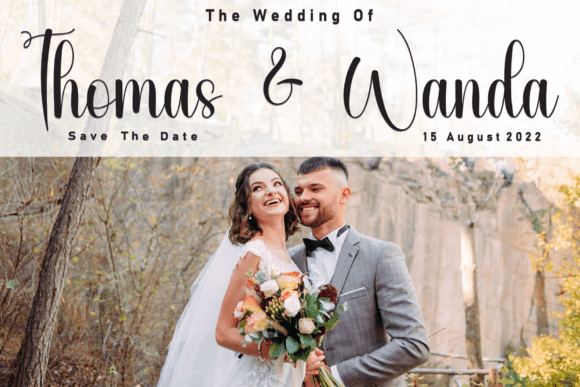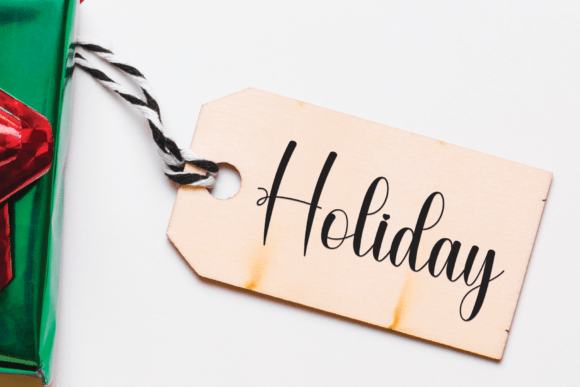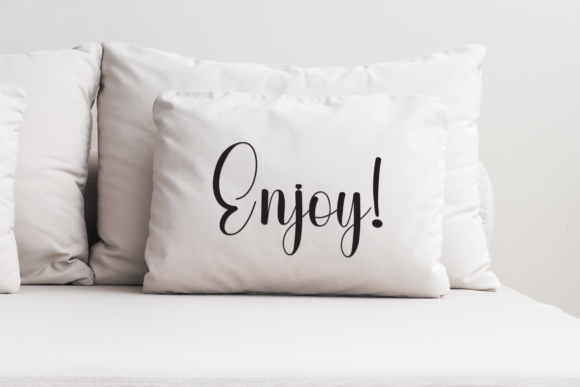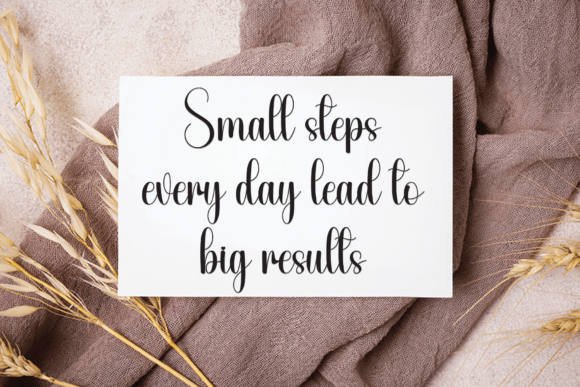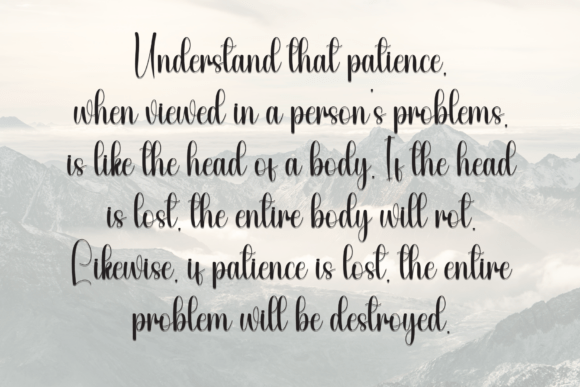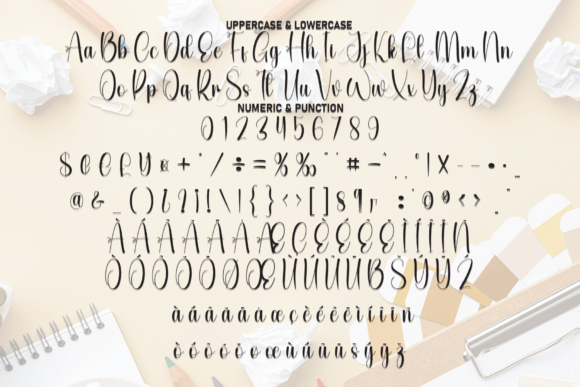
Introducing Creativity Font: The Perfect Blend of Warmth and Friendliness
In the world of typography, few fonts manage to capture the essence of warmth and friendliness. But, Creativity Font is here to change that. This charming, personable handcrafted display font is designed to bring a touch of delightful appeal to your designs. Whether you’re crafting heartwarming wedding invitations, thoughtful greeting cards, or any design project that requires a sprinkle of personality, Creativity Font is the perfect choice.
The Characteristics of Creativity Font
Creativity Font boasts playful and lovely characteristics that set it apart from other fonts. Its handcrafted nature gives it a unique, organic feel that’s perfect for designers and crafters looking to add a personal touch to their work. The font’s warm and friendly tone is sure to evoke emotions and create a connection with your audience. With Creativity Font, you can add a touch of whimsy and charm to your designs, making them truly unforgettable.
The Benefits of Using Creativity Font
So, why choose Creativity Font for your design projects? Here are just a few benefits of using this enchanting font:
- Emotional Connection: Creativity Font’s warm and friendly tone helps create an emotional connection with your audience, making your designs more relatable and engaging.
- Unique and Personalized: The font’s handcrafted nature ensures that your designs stand out from the crowd and showcase your unique personality.
- Versatile: Creativity Font is perfect for a wide range of design projects, from wedding invitations and greeting cards to branding and packaging.
- Easy to Read: Despite its playful nature, Creativity Font remains easy to read, making it perfect for designs that require a clear and concise message.
Using Creativity Font in Your Designs
Creativity Font is incredibly versatile and can be used in a variety of design projects. Here are a few ideas to get you started:
- Wedding Invitations: Add a touch of romance and whimsy to your wedding invitations with Creativity Font.
- Greeting Cards: Create thoughtful and personalized greeting cards for special occasions like birthdays, holidays, and anniversaries.
- Branding and Packaging: Use Creativity Font to add a personal touch to your branding and packaging designs, making them stand out from the competition.
- Social Media Graphics: Add a sprinkle of personality to your social media graphics, making them more engaging and shareable.
Tips for Getting the Most Out of Creativity Font
To get the most out of Creativity Font, here are a few tips to keep in mind:
- Experiment with Colors: Creativity Font looks great in a variety of colors, so don’t be afraid to experiment and find the perfect hue for your design.
- Mix and Match: Combine Creativity Font with other fonts to create a unique and visually appealing design.
- Play with Size and Style: Experiment with different font sizes and styles to add depth and interest to your design.
In conclusion, Creativity Font is a charming, personable handcrafted display font that’s perfect for designers and crafters looking to add a touch of warmth and friendliness to their designs. With its playful and lovely characteristics, Creativity Font is sure to lend an enchanting touch to your creations. Whether you’re crafting heartwarming wedding invitations, thoughtful greeting cards, or any design project that requires a sprinkle of delightful appeal, Creativity Font is the perfect choice.